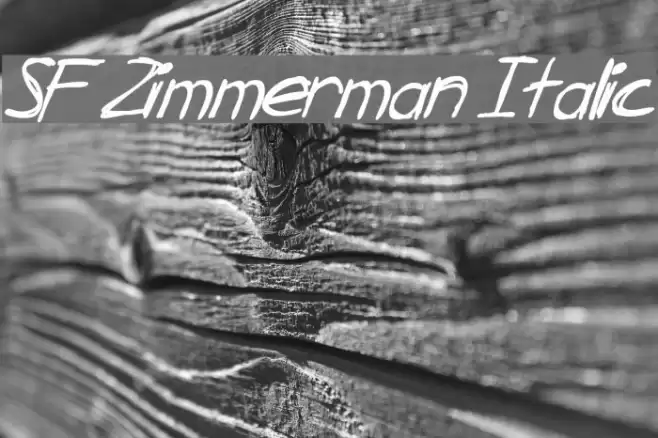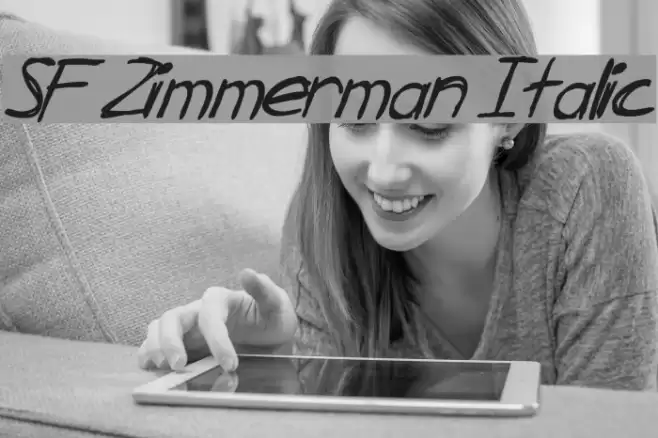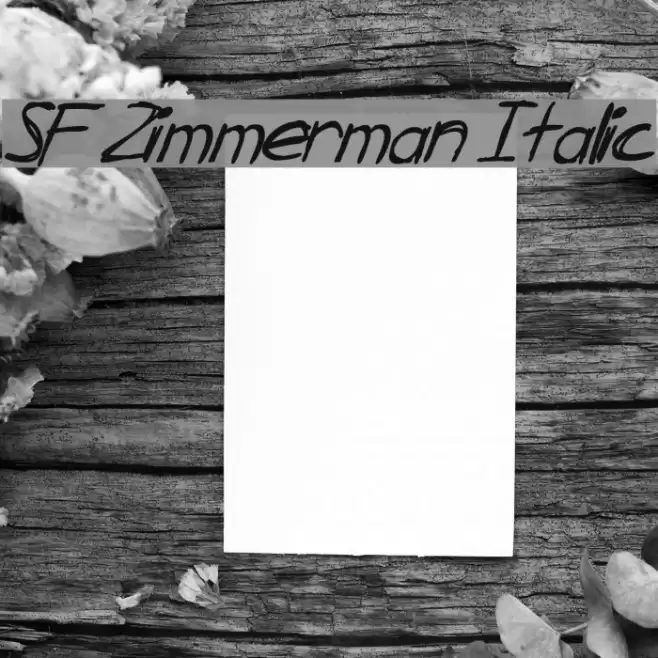
SF Zimmerman Italic Font
SF Zimmerman Italic Description
This font features a dynamic and energetic style with a handwritten appearance. The letters are slanted, giving it an italicized look, and the strokes are bold and fluid, resembling a casual script. The uppercase and lowercase letters maintain a consistent flow, while the numbers and special characters complement the overall design. The font's informal and lively nature makes it suitable for projects that require a personal touch or a sense of movement.
| Overall Style | Casual, Energetic |
| Use Case | Headlines, Logos, Creative projects |
| Proposed Projects | Ideal for greeting cards, invitations, personal branding, and creative posters. |